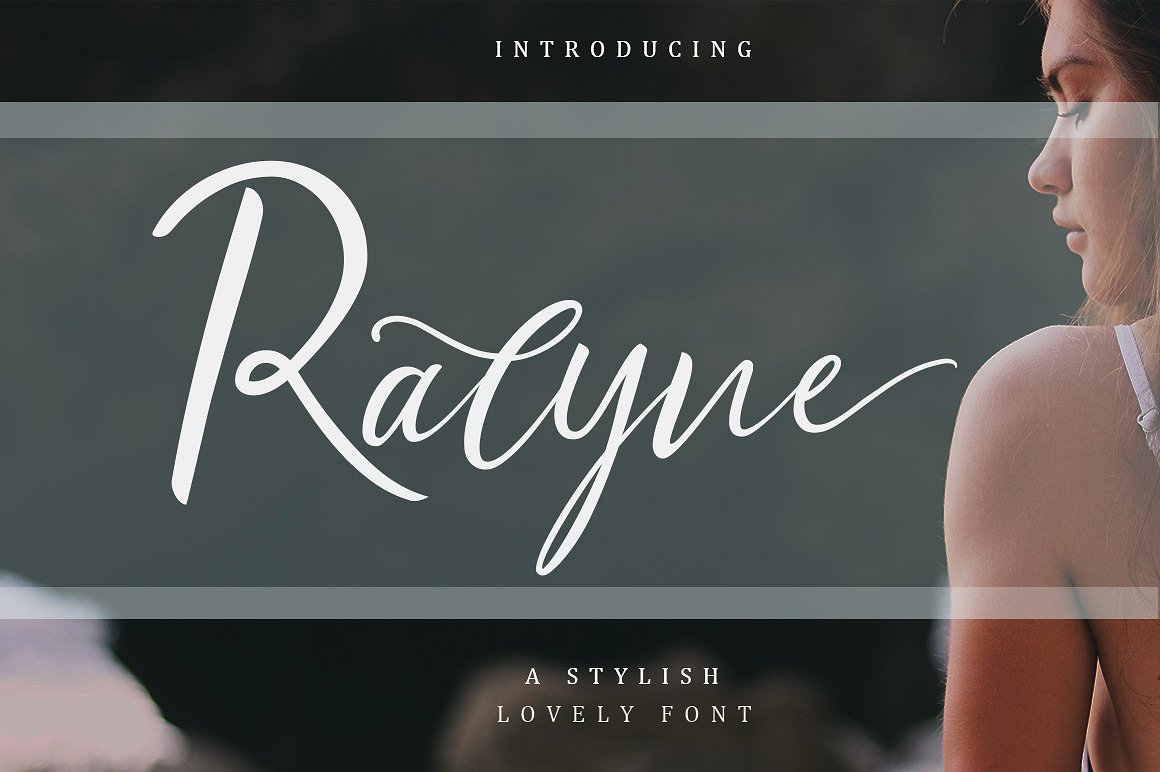
Ralyne Handwritten Font
Introducing Ralyne, a stylist lovely calligraphy font with handwritten, sophisticated flows. Ralyne offers beautiful typographic harmony for a diversity of design projects, including logos & branding, wedding designs, social media posts, advertisements & product designs.